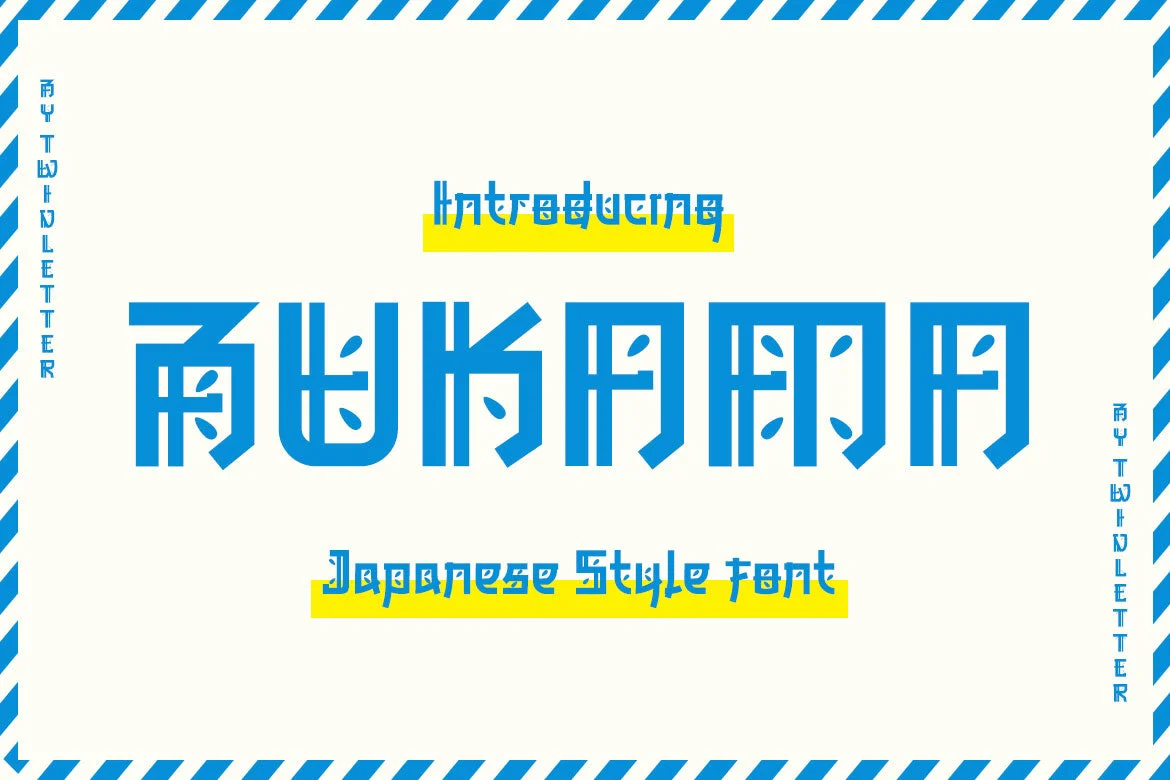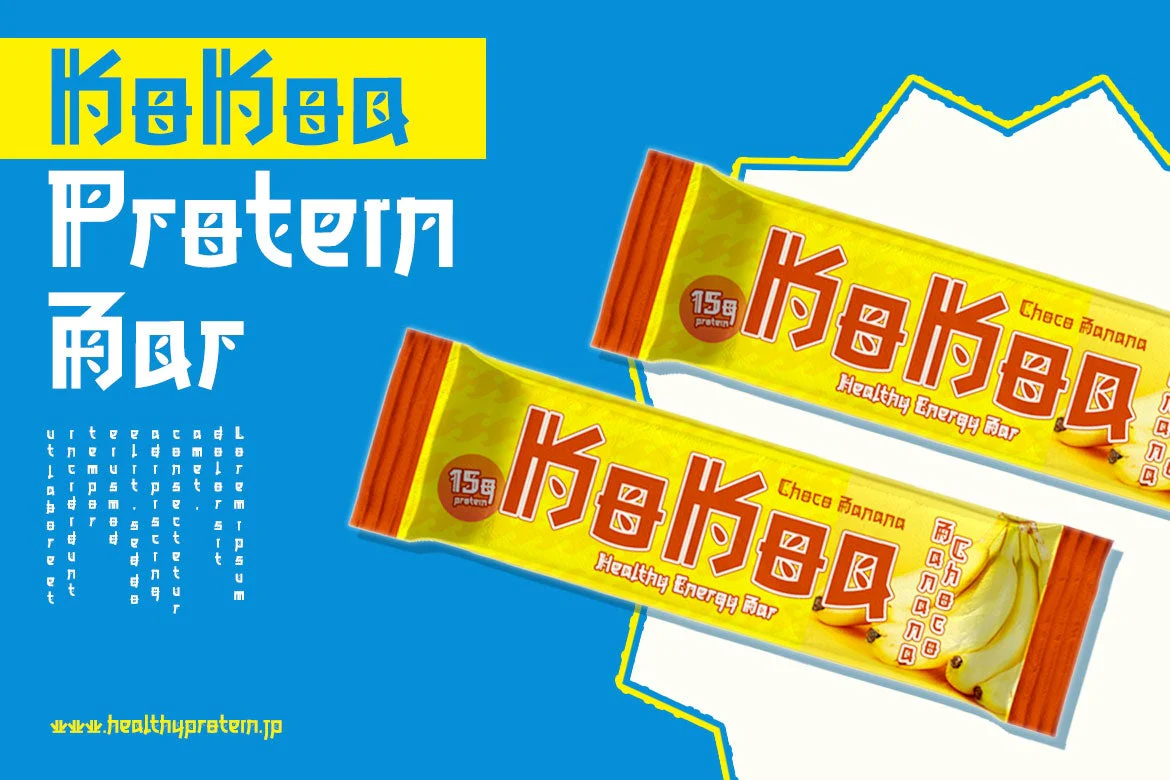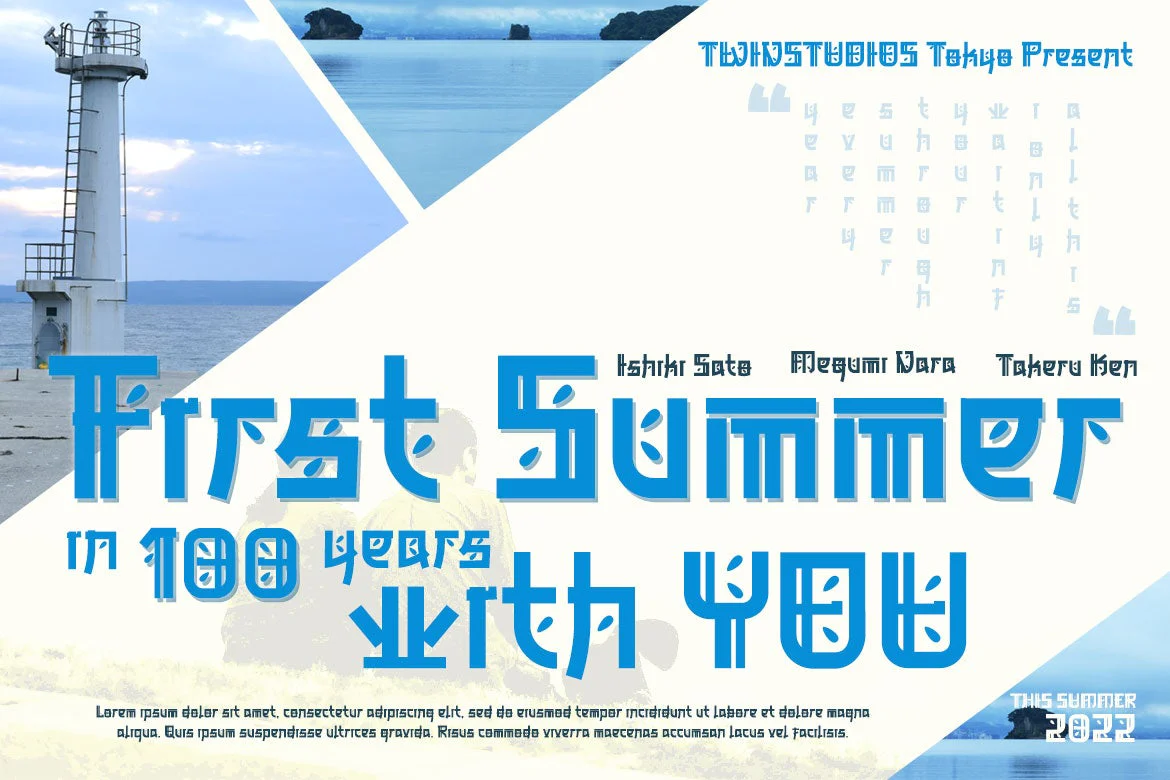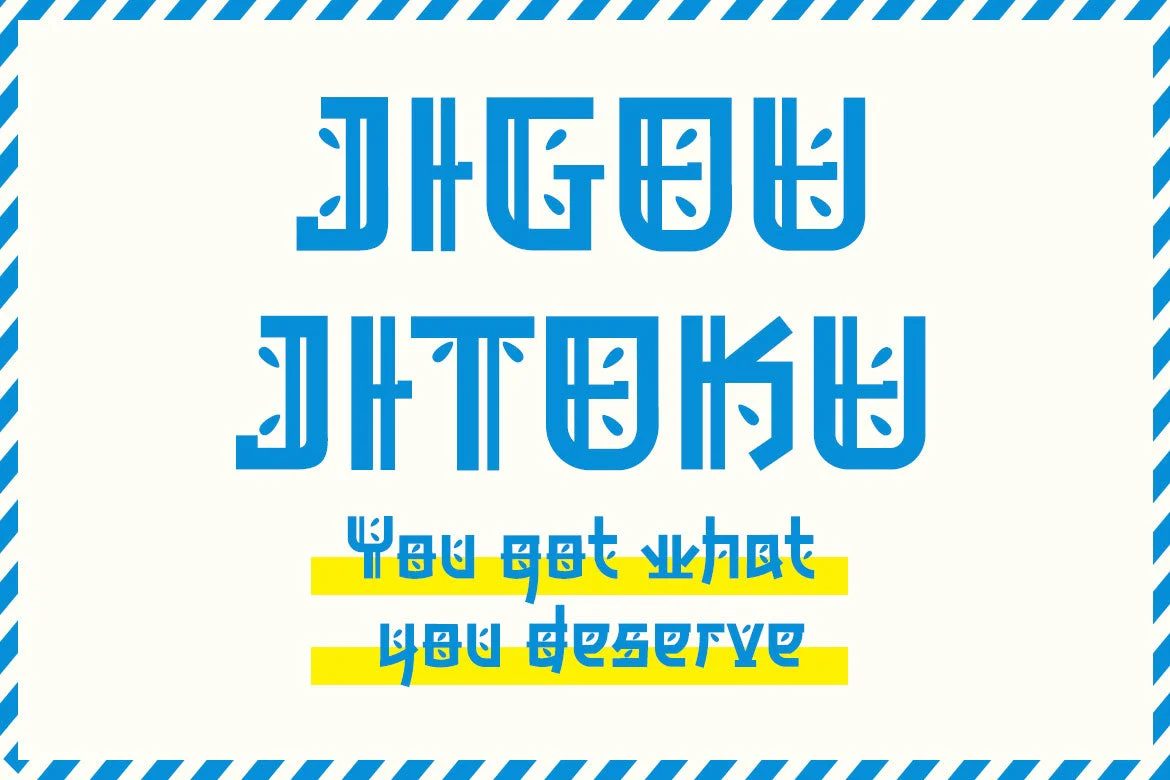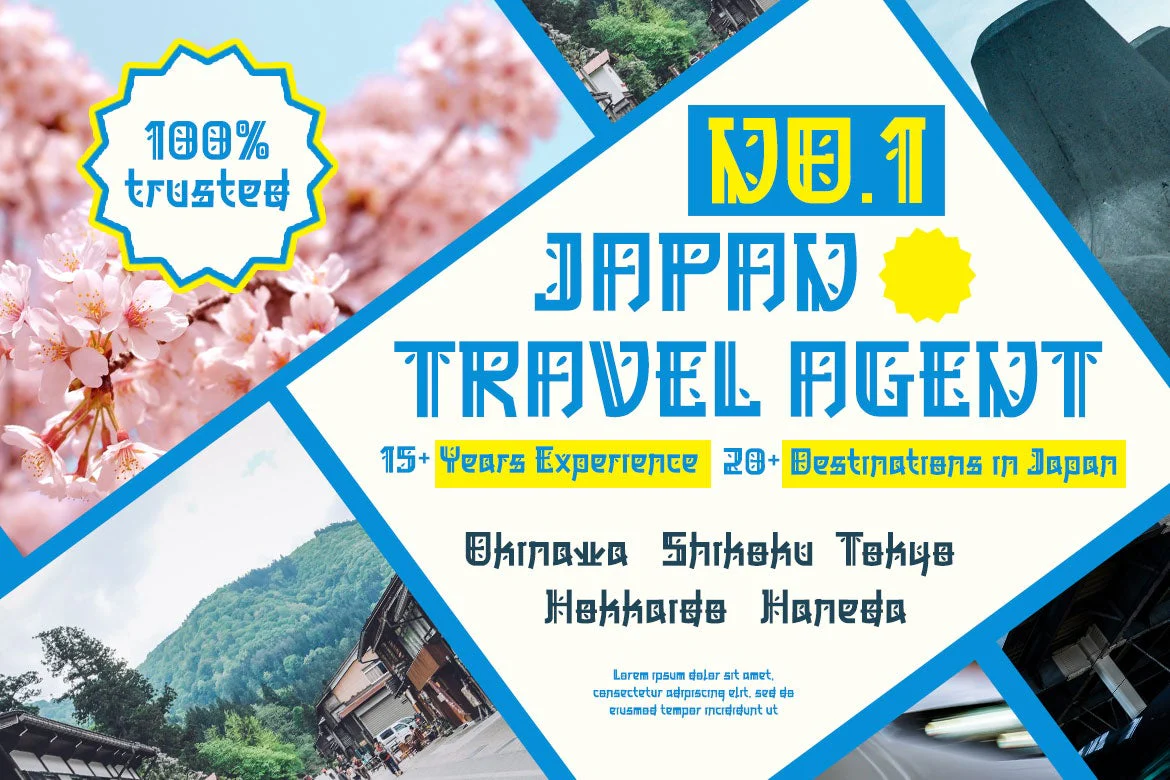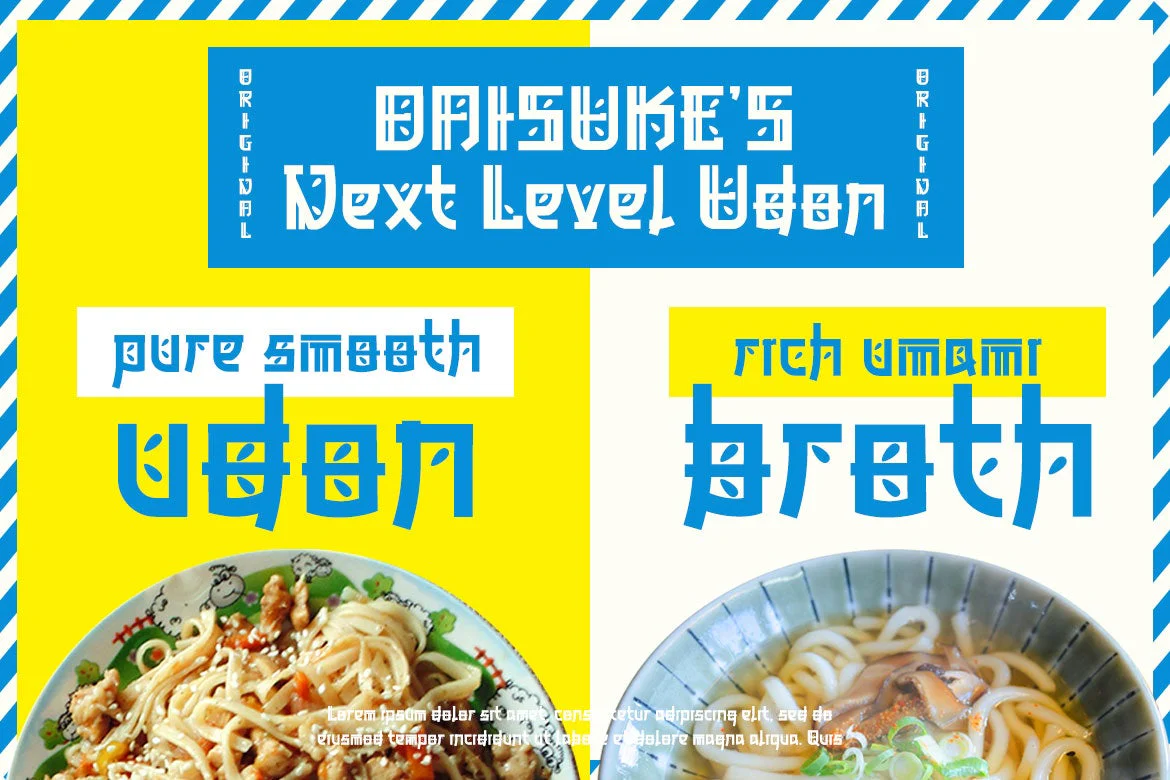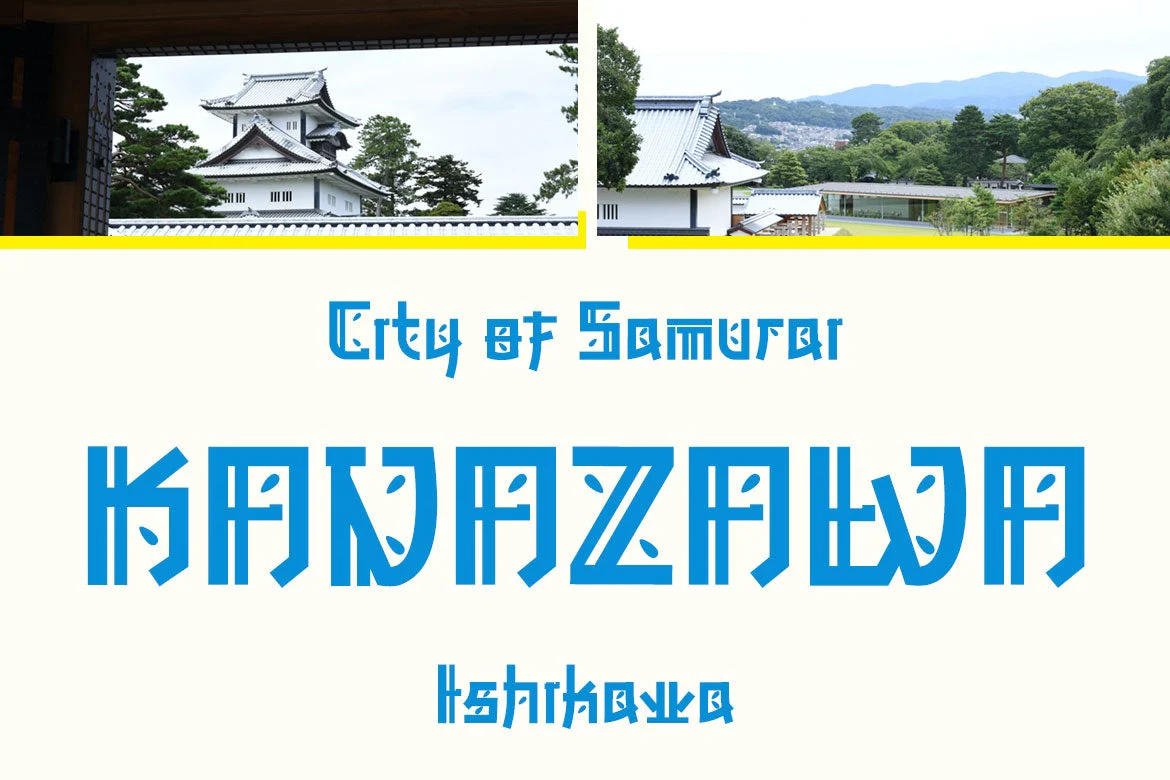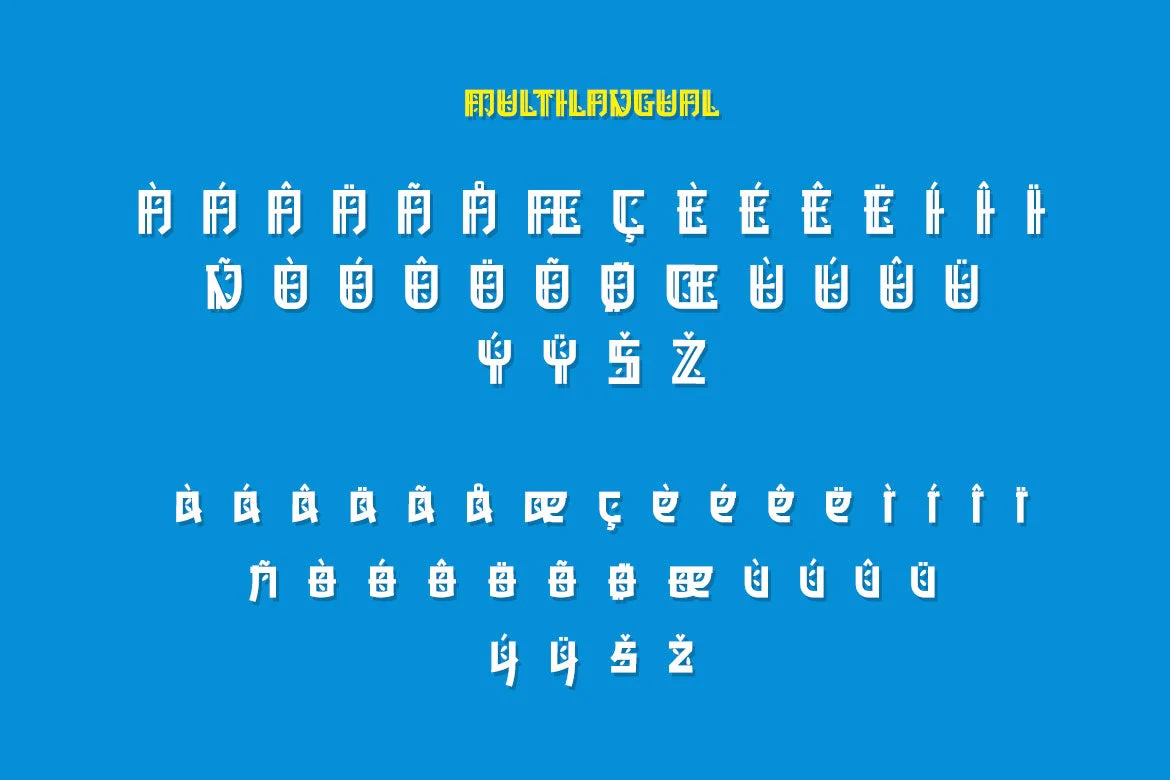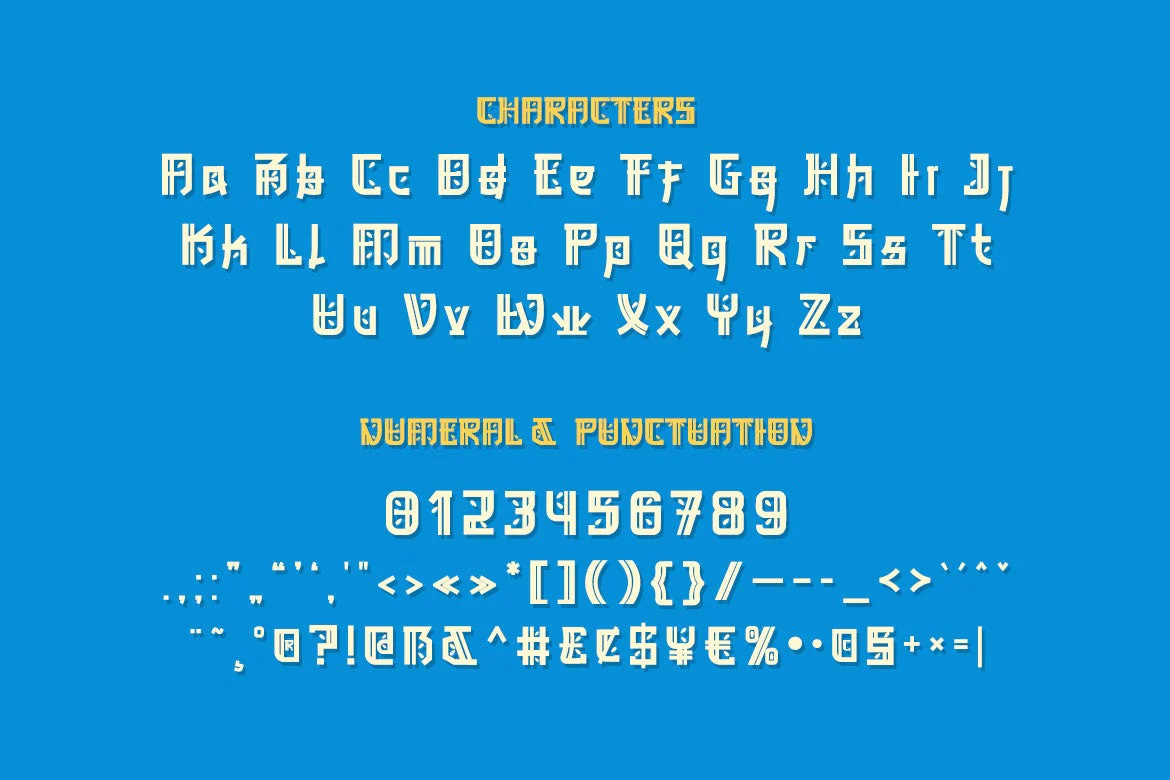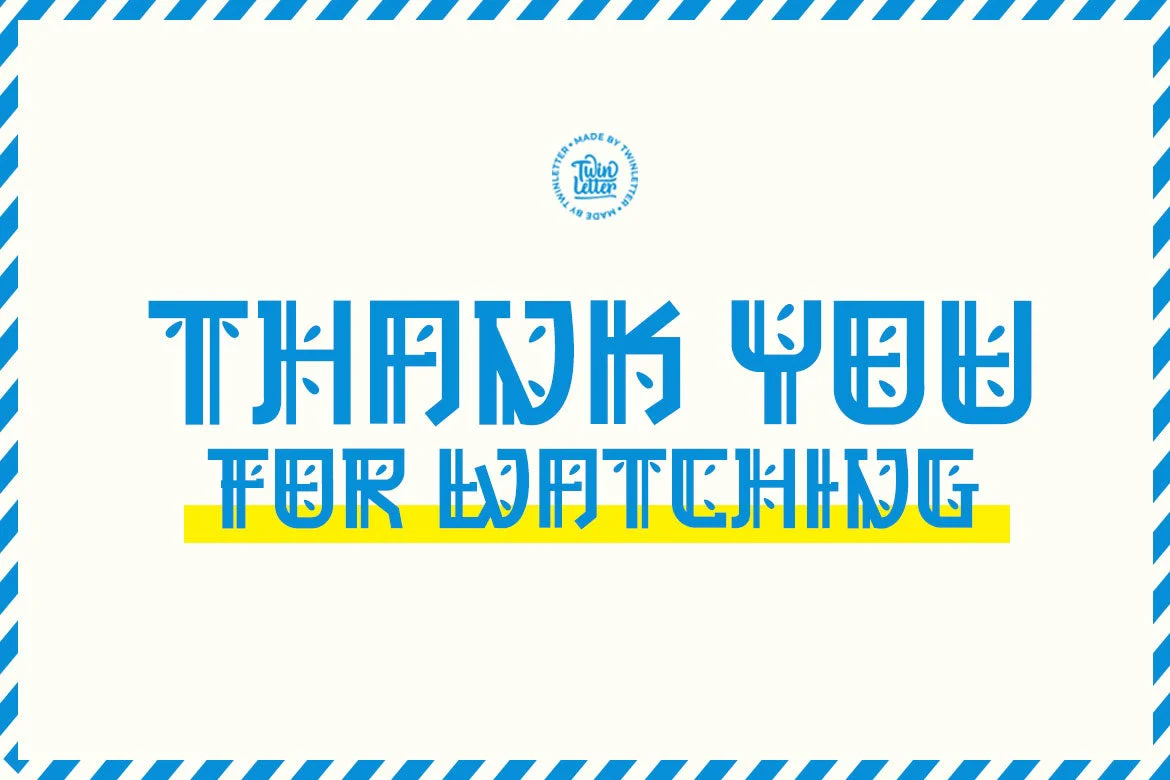
BUKAMA Faux Japanese Font
BUKAMA font is a faux Japanese font with a distinctive and unusual shape. If you use this font in a special project, it will look straight away and fit into the composition of the visual display that has an Asian design theme.
Logotypes, food banners, branding, brochure, posters, movie titles, book titles, quotes, and more may all benefit from this font.
Of course, using this font in your various design projects will make them excellent and outstanding; many viewers are drawn to the striking and unusual graphic display.
Start utilizing this typeface in your projects to make them stand out.
BUKAMA font is a faux Japanese font with a distinctive and unusual shape. If you use this font in a special project, it will look straight away and fit into the composition of the visual display that has an Asian design theme.
Logotypes, food banners, branding, brochure, posters, movie titles, book titles, quotes, and more may all benefit from this font.
Of course, using this font in your various design projects will make them excellent and outstanding; many viewers are drawn to the striking and unusual graphic display.
Start utilizing this typeface in your projects to make them stand out.